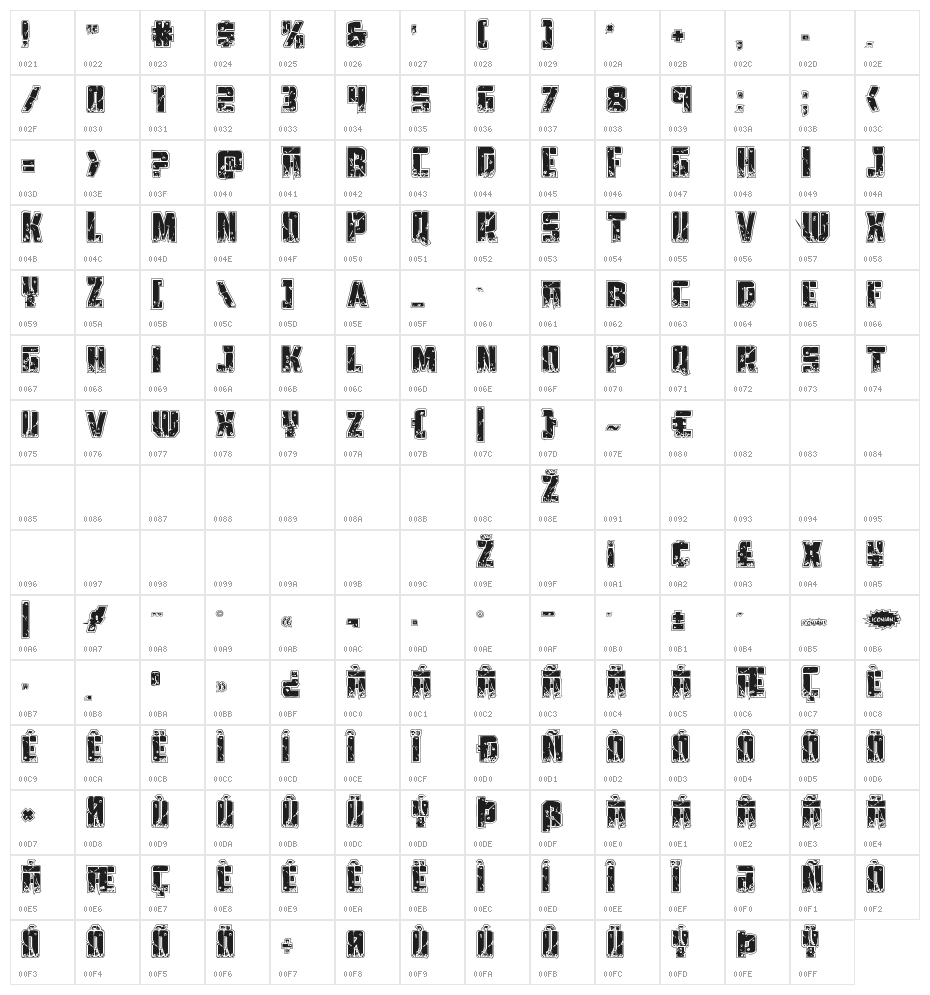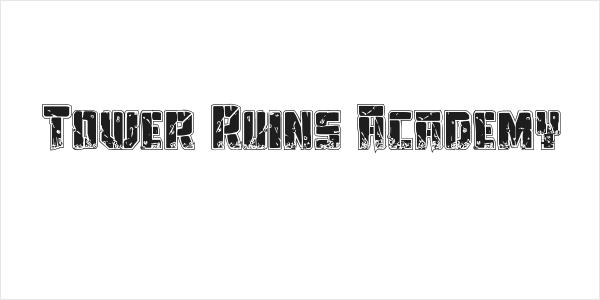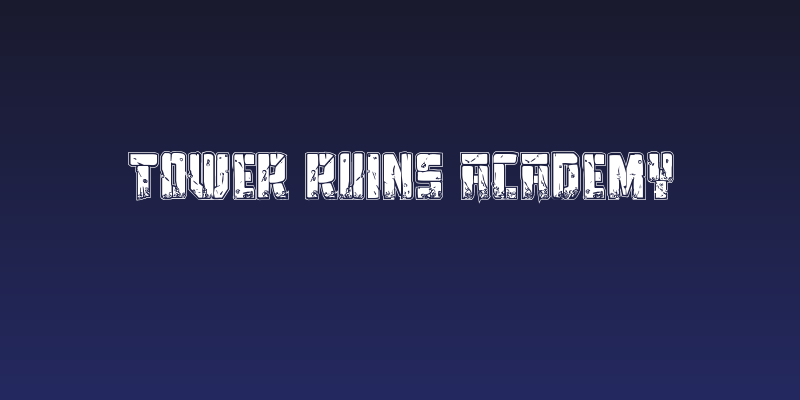
Tower Ruins Academy Font
Tower Ruins Academy Description
This font features a bold, distressed style with a rugged, textured appearance reminiscent of ancient ruins. Each character is encased in a solid outline, giving it a strong, impactful presence. The interior of the letters is filled with irregular, jagged patterns that evoke a sense of decay and erosion, adding to its dramatic and eye-catching design. The font maintains a consistent height across all characters, ensuring uniformity while the distressed elements provide a unique, artistic flair. This style is particularly suited for projects that require a bold statement or a theme of antiquity and mystery.